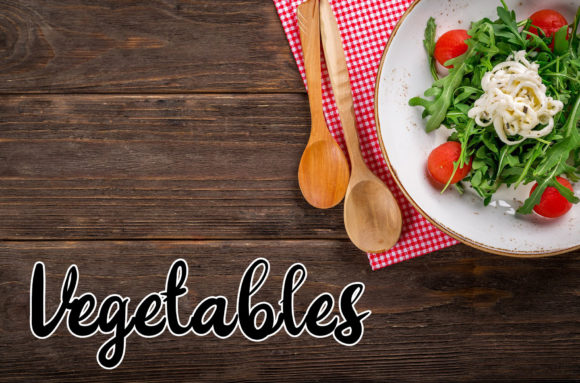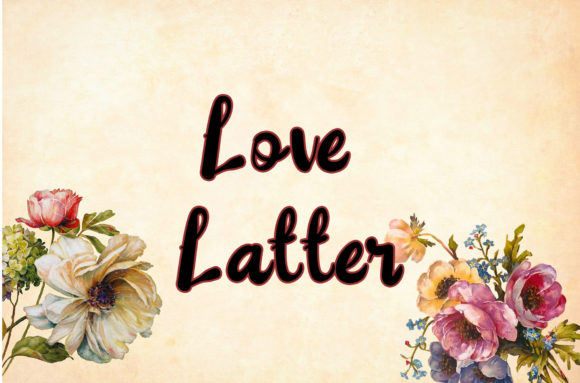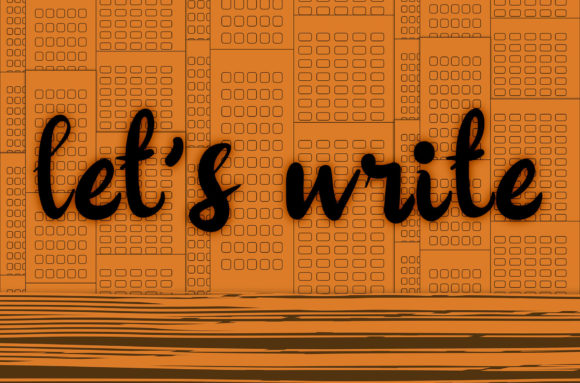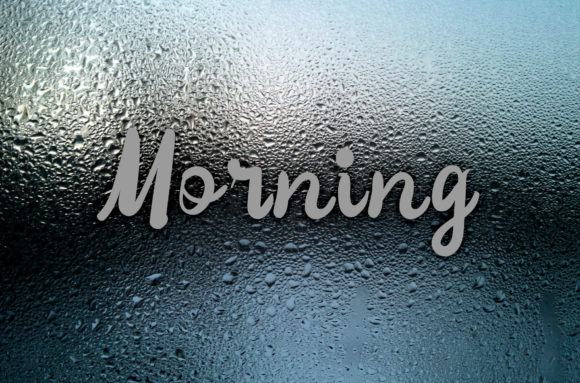
Introduction to Sale Font Font
Fonts play a crucial role in design, and the Sale Font font is a typeface that brings both character and versatility to any project. Whether you’re working on a branding project, a website, or a print design, the Sale Font font offers a unique style that can elevate your work.
Sale is a modern handwritten font with a stunning style inspired by classic lettering posters.
Use it for branding, wedding designs, makeup packaging, headlines, logos, posters, and more .
Key Features of Sale Font Font
Why Choose Sale Font Font?
The Sale Font font is more than just a typeface – it’s a design tool that helps you communicate your message with style and clarity. Its unique character set and versatile design make it suitable for a wide range of applications, from elegant invitations to bold headlines.
With its carefully crafted letterforms and balanced proportions, the Sale Font font ensures readability and visual appeal across all mediums.
What makes Sale Font font special?
The Sale Font font stands out with its unique design, exceptional readability, and versatility across various design applications.